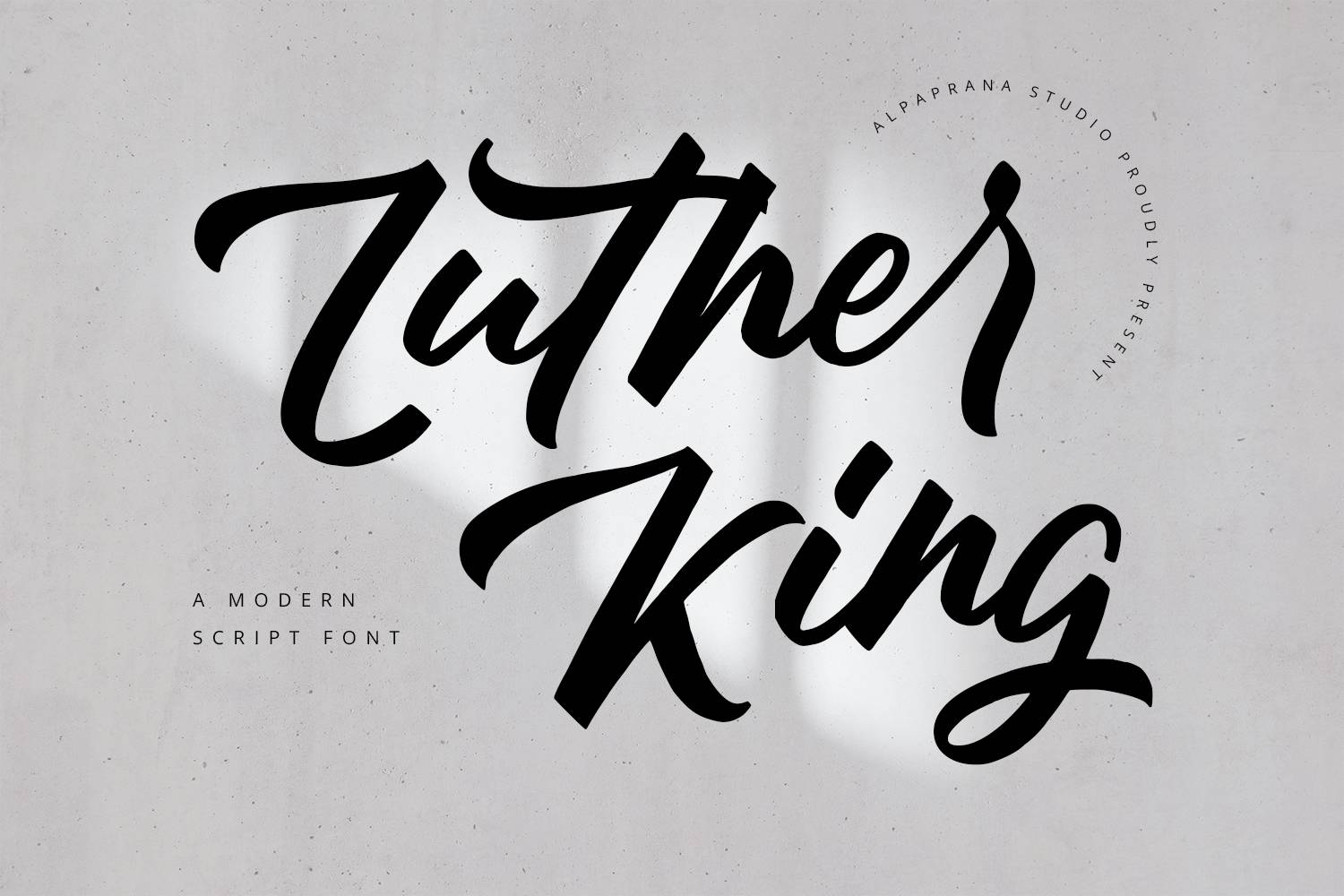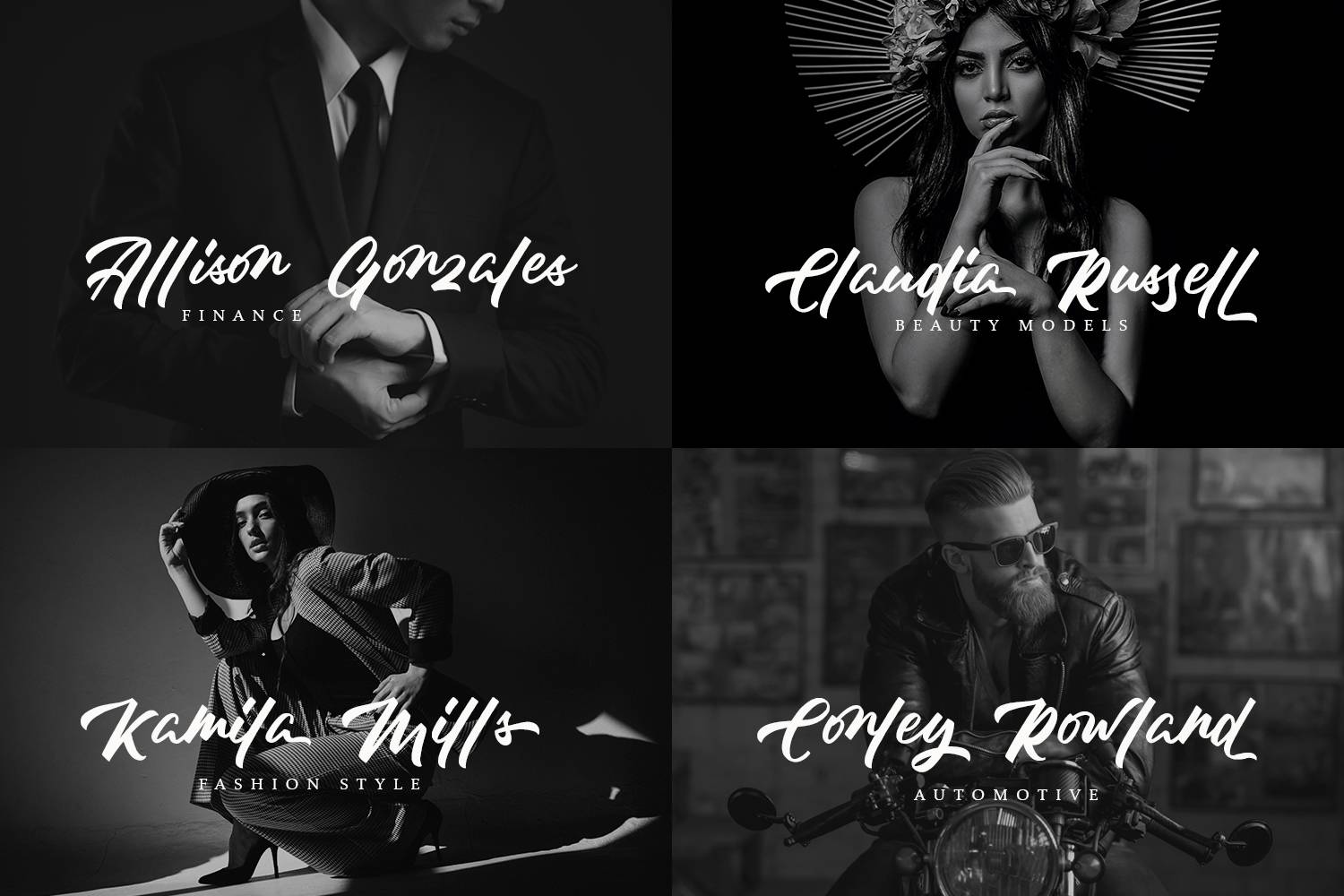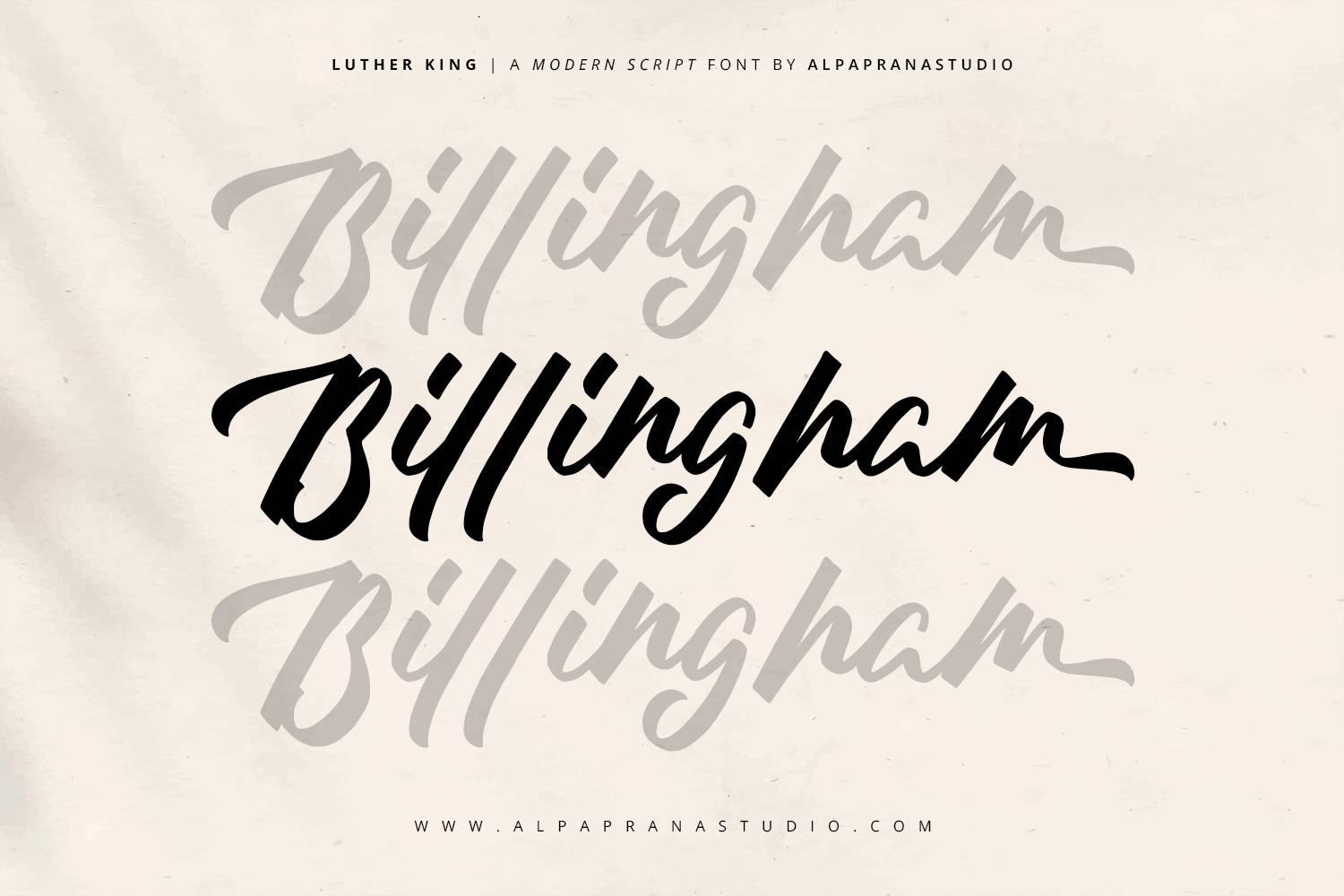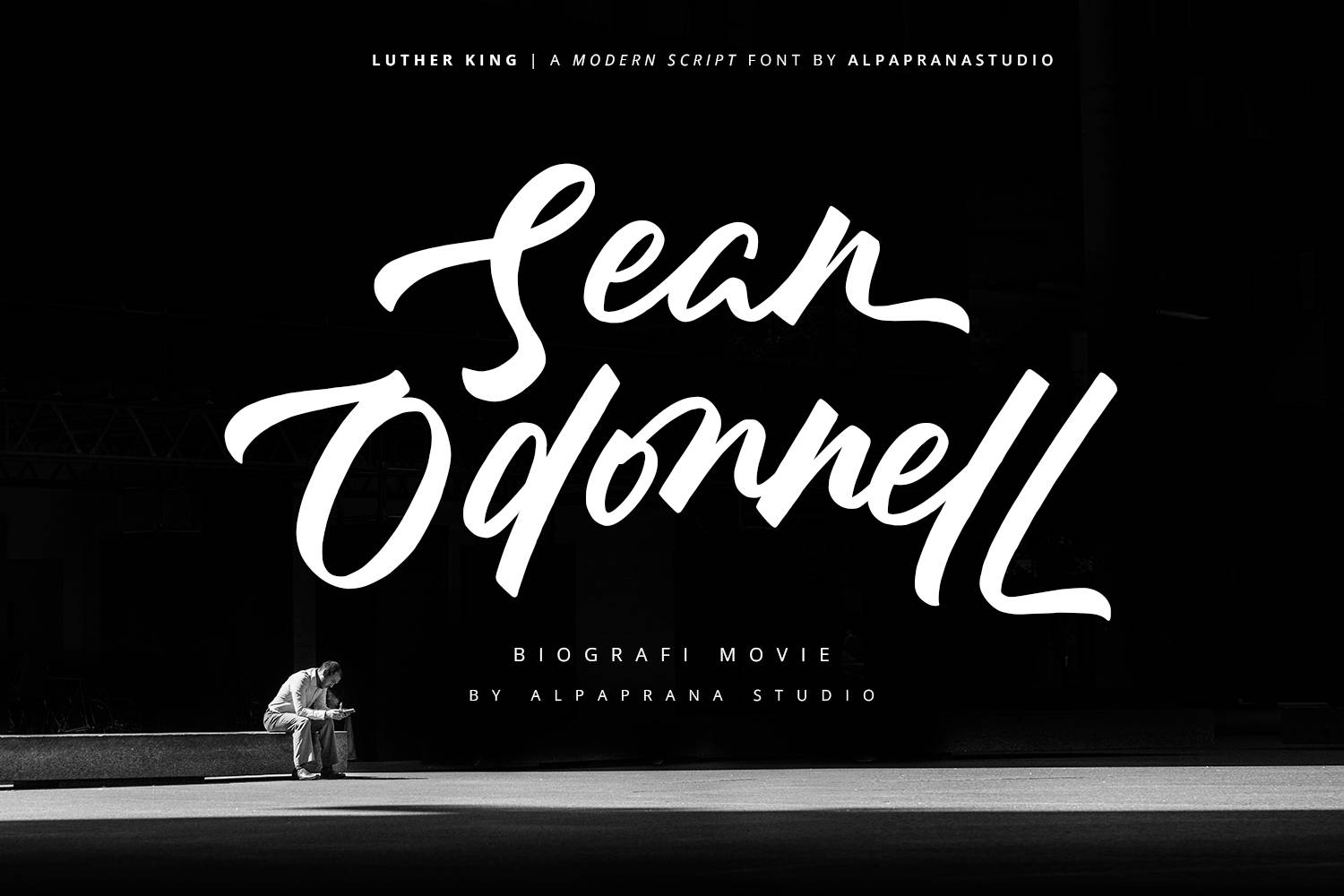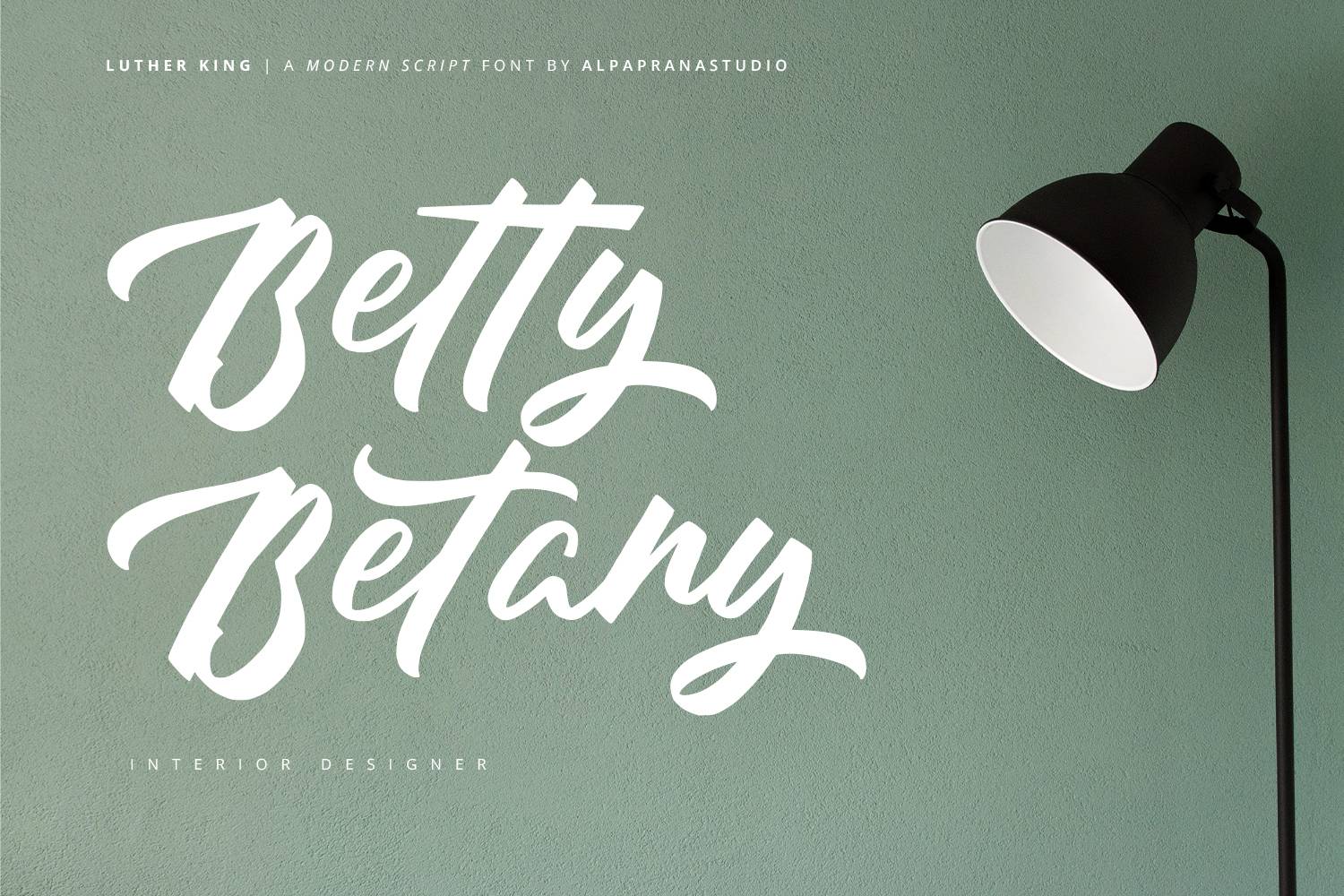
Luther King is a lively and expressive script font with a brush-style texture that feels both personal and dynamic. Its moderate contrast and fluid strokes give it an energetic yet approachable vibe, making it ideal for branding, invitations, and creative projects that seek a handwritten, authentic touch. This font stands out in headlines and logos where a bold, artistic personality is desired.
Luther King Font
About Luther King Font